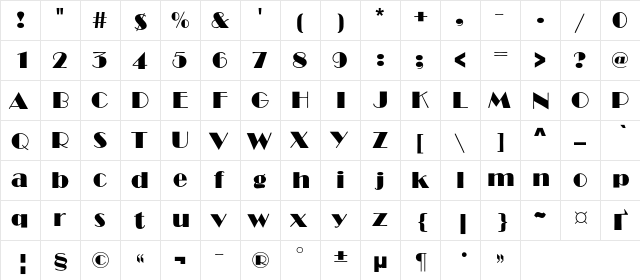
HighWayC Regular
Design Context for HighWayC Typeface
HighWayC is a composed and adaptable typeface that performs quietly and consistently across a wide range of design contexts.